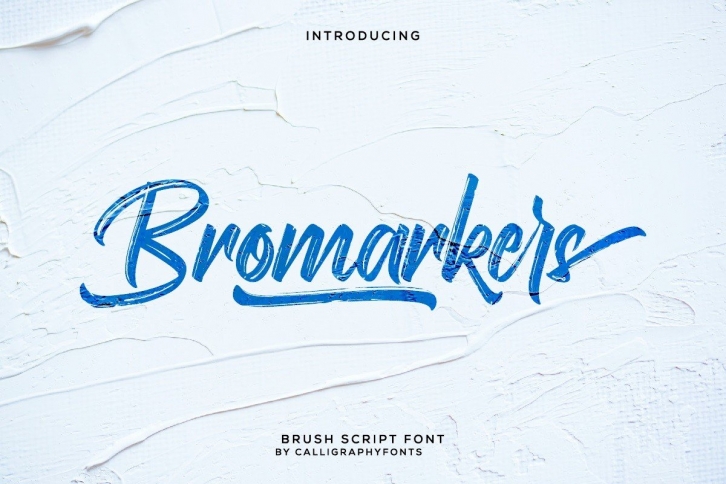
Bromarkers is a lovely and flowing brushed script font. It is defined by smooth curves and is perfect for fashion branding or editorial designs. This font is PUA encoded which means you can access all of the glyphs and swashes with ease!Â